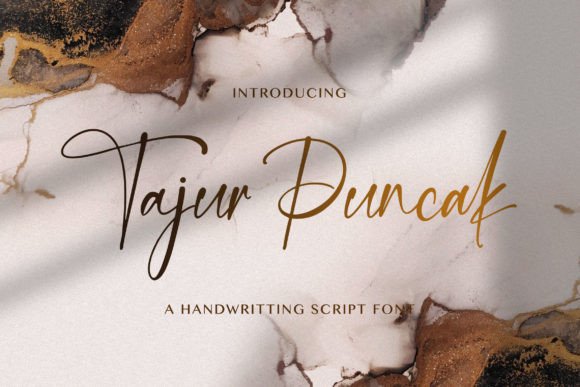
Unleash the beauty of handwritten typography with Tajur Puncak, a stunning script font family crafted by StringLabs. Dive into a world of elegance and creativity as this font takes your designs to new heights. With its delicate strokes, flowing curves, and well-balanced characters, Tajur Puncak adds a touch of timeless sophistication to any project.
Immerse yourself in the versatility of Tajur Puncak, a font that seamlessly adapts to a myriad of design styles. Whether you're crafting wedding invitations, heartfelt letters, captivating logos, or eye-catching social media posts, this font will elevate your words with grace and charm.
Tajur Puncak's harmonious curves evoke a sense of fluidity, inviting your audience to embark on a visual journey. Its elegant lines dance across the page, captivating attention and leaving a lasting impression. Experience the joy of seamless readability, as each character flows effortlessly into the next, creating a cohesive and visually pleasing composition.